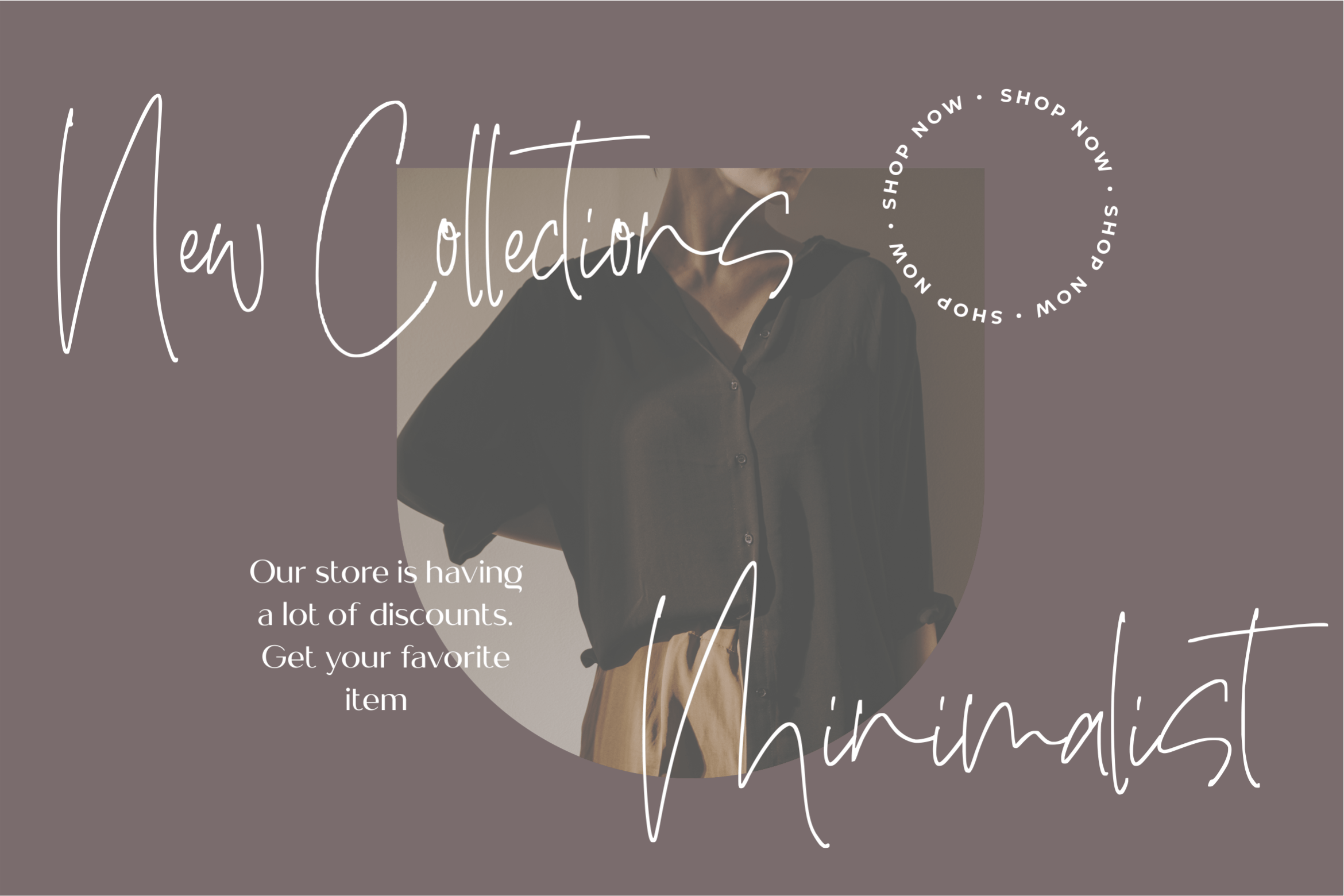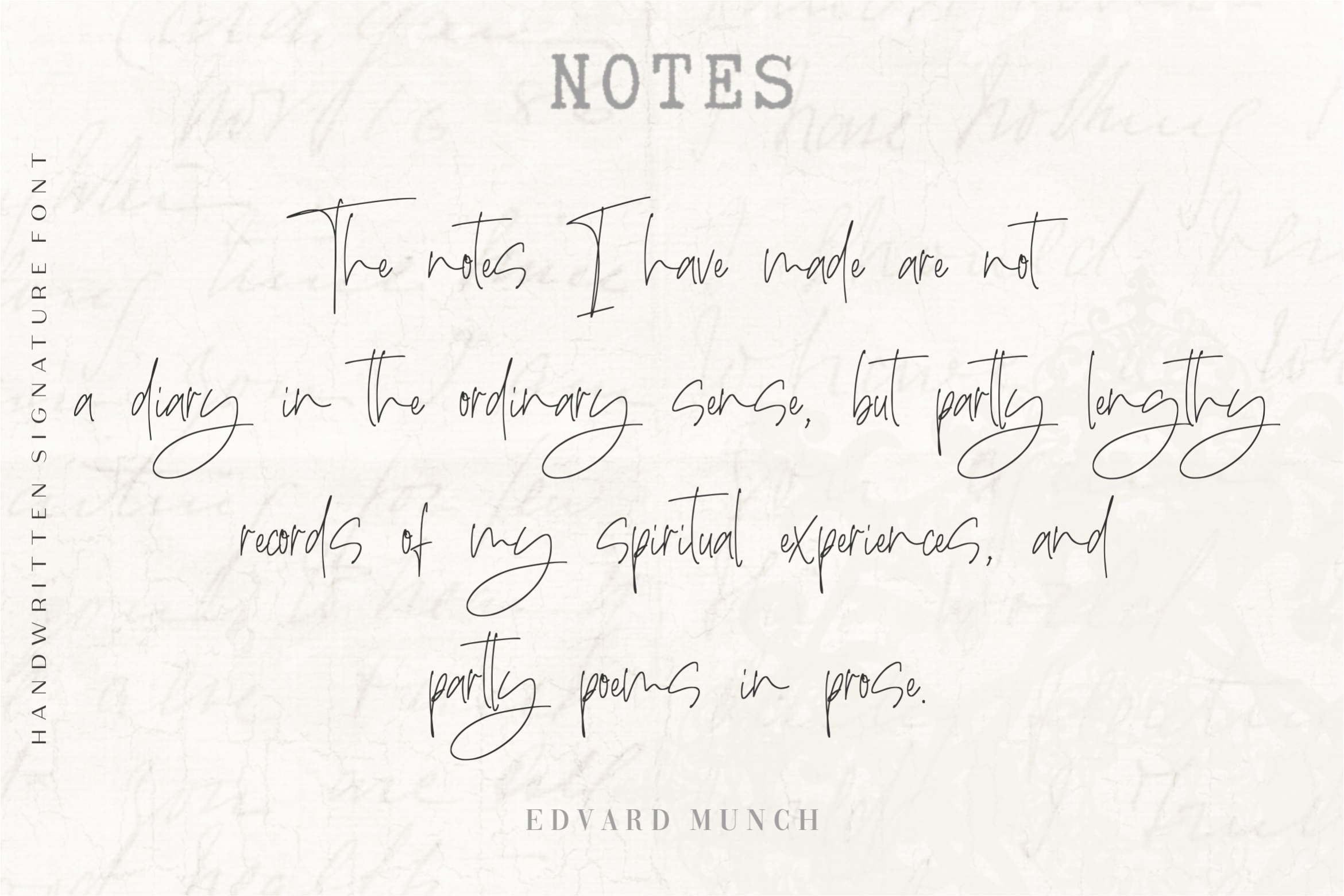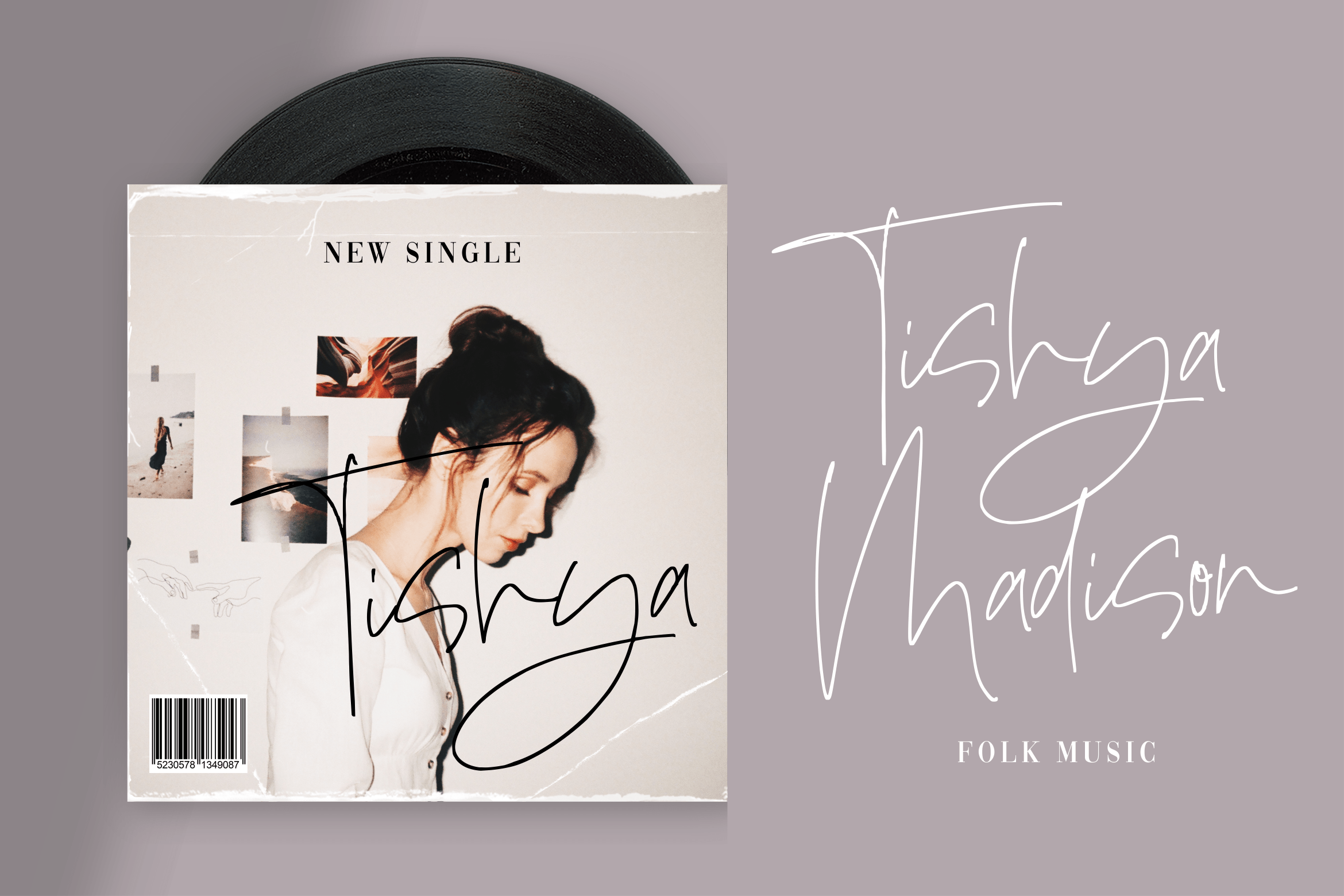
Shelbymalkan Font
Shelbymalkan Handwritten Font
This is a sweet and cursive handwritten font. This gentle font will look gorgeous on a variety of design ideas. It will add a joyful and romantic touch to each of your projects!